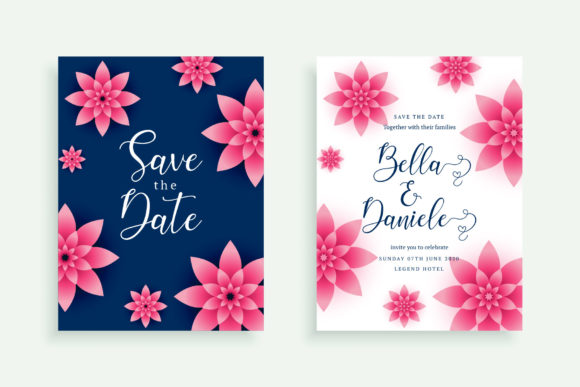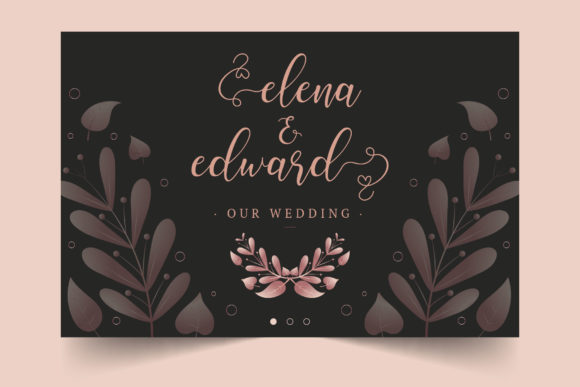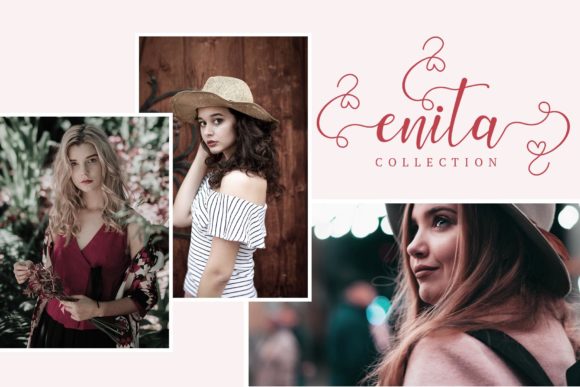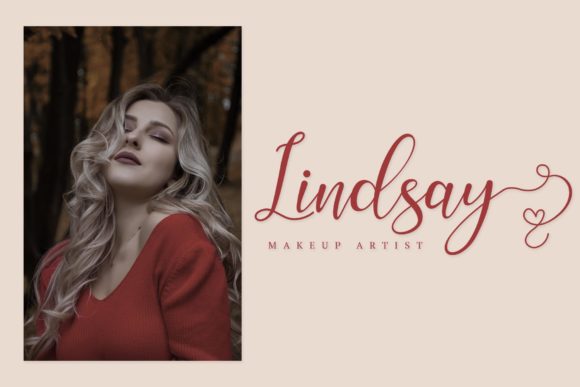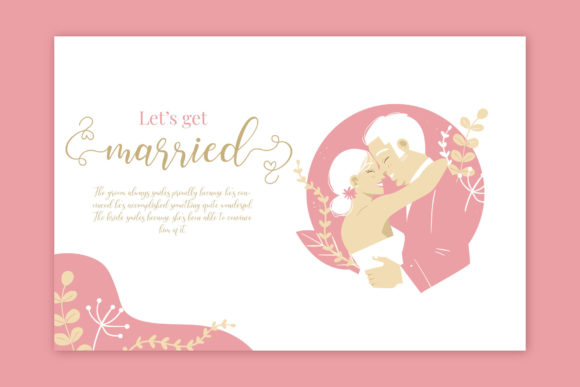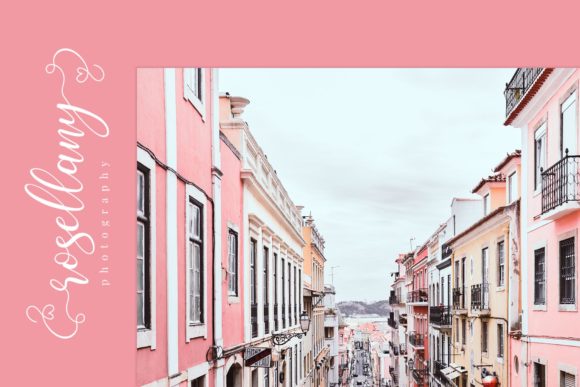
Introducing Ellise Font: The Sweet and Soft Hand-Lettered Script Font
Are you looking for a font that exudes warmth, elegance, and a touch of whimsy? Look no further than Ellise, a beautiful hand-lettered script font that’s perfect for creating stunning wedding invitations, stationery art, social media posts, and greeting cards. In this article, we’ll dive into the world of Ellise font, exploring its features, uses, and benefits for designers and crafters.
What is Ellise Font?
Ellise is a sweet, soft hand-lettered script font that’s designed to capture the essence of authentic, handwritten script. With its flowing curves, gentle lines, and delicate connections, Ellise is the perfect choice for anyone looking to add a touch of elegance and sophistication to their designs. Whether you’re creating wedding invitations, stationery art, or social media posts, Ellise is sure to make your designs stand out.
Key Features of Ellise Font
- Hand-lettered script: Ellise is a carefully crafted hand-lettered script font that’s designed to mimic the look and feel of authentic handwritten script.
- Sweet and soft: Ellise features soft, flowing curves and gentle lines that give it a sweet and feminine touch.
- Elegant and sophisticated: With its delicate connections and refined lines, Ellise is the perfect choice for creating elegant and sophisticated designs.
- Highly versatile: Ellise can be used for a wide range of design projects, from wedding invitations and stationery art to social media posts and greeting cards.
Uses for Ellise Font
Ellise is an incredibly versatile font that can be used for a wide range of design projects. Here are just a few ideas to get you started:
- Wedding invitations: Ellise is the perfect choice for creating beautiful, elegant wedding invitations that set the tone for a special day.
- Stationery art: Use Ellise to create stunning stationery art, including notecards, journals, and planners.
- Social media posts: Add a touch of elegance and sophistication to your social media posts with Ellise.
- Greeting cards: Ellise is perfect for creating cute and heartfelt greeting cards for special occasions.
Tips for Using Ellise Font
Here are a few tips for getting the most out of Ellise font:
- Experiment with different sizes: Ellise looks great in a variety of sizes, so don’t be afraid to experiment to find the perfect fit for your design.
- Pair with other fonts: Ellise pairs beautifully with other fonts, so try combining it with a bold font for added contrast.
- Add embellishments: Consider adding embellishments, such as flowers or leaves, to give your designs an extra touch of elegance.